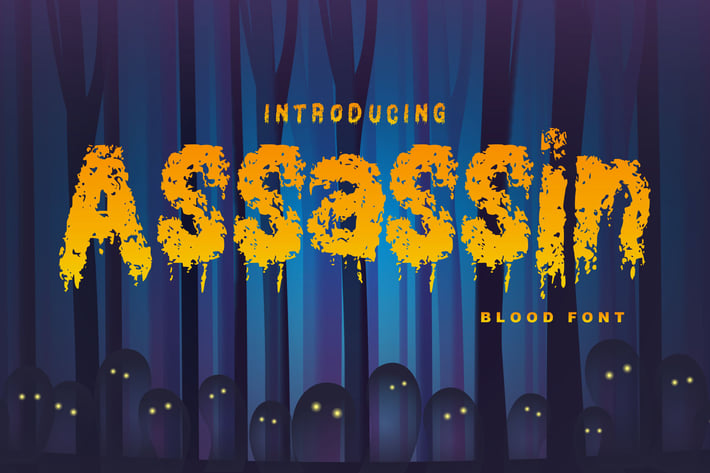
Assassin | Decorative Blood Font
Assassin | Decorative Blood Font with a horror style, So beautiful on invitation like greeting cards, branding materials, business cards, quotes, posters, and more!